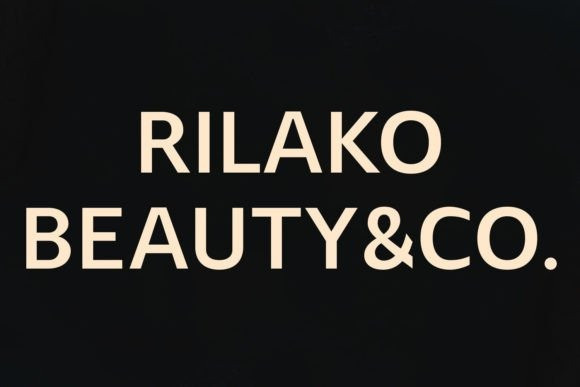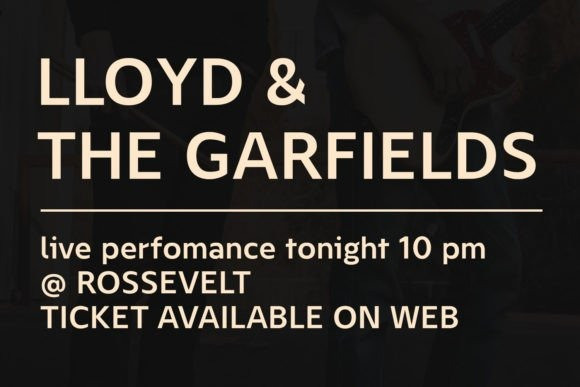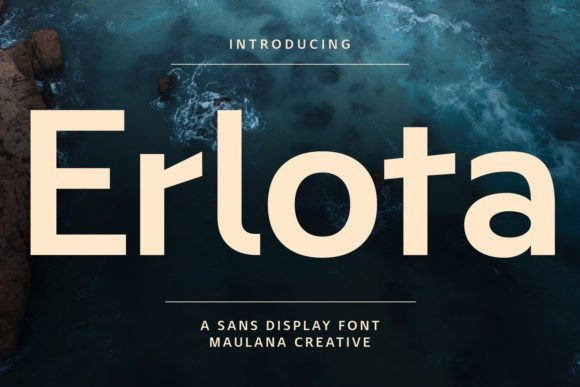
Erlota Font
Erlota Font is a quirky, modern, and delightful sans-serif font. With regular consistent strokes and distinctive characters, the font will give a special aura to your project ideas.